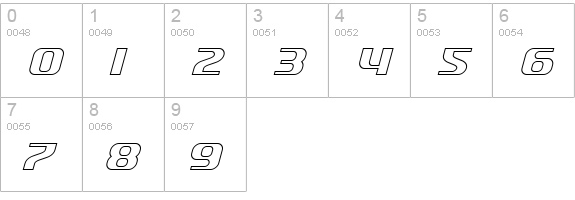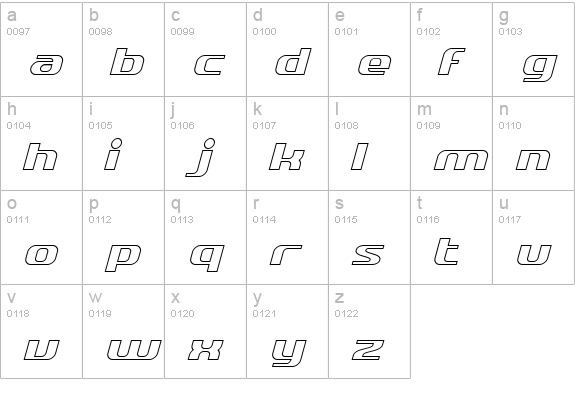
SF Quartzite Outline Italic Font Details
SF Quartzite Outline Italic is a distinctive, italic variant in the SF typeface family \xE2\x80\x94 well suited to design and typography projects.
SF Quartzite Outline Italic is a stunning and versatile font that effortlessly combines elegance with a modern edge. Its italic design adds a touch of sophistication and uniqueness to any project, making it perfect for both professional and creative endeavors. The font's meticulously crafted outlines give it a distinctive and eye-catching appearance, ensuring that it stands out from the crowd. Its sleek and refined curves create a sense of fluidity and movement, making it ideal for designs that require a dynamic and energetic touch. SF Quartzite Outline Italic is not only visually captivating, but it also offers exceptional readability, making it suitable for a wide range of applications. Whether it's used for headlines, logos, branding materials, packaging, or any other design project, this font guarantees legibility and impact. One of the most remarkable aspects of SF Quartzite Outline Italic is that it is free to download at FontsMarket.com. This means that you can effortlessly add this incredible font to your collection without spending a dime, allowing you to enhance your designs with a high-quality and distinctive typeface. With SF Quartzite Outline Italic, you have the freedom to unleash your creativity and bring your vision to life. Its versatility and unique style make it a valuable asset for designers, artists, and anyone looking to make a statement through their typography. Download SF Quartzite Outline Italic for free at FontsMarket.com and elevate your designs to new heights. Embrace the elegance, versatility, and readability that this font offers, and create visually stunning and impactful projects that leave a lasting impression.